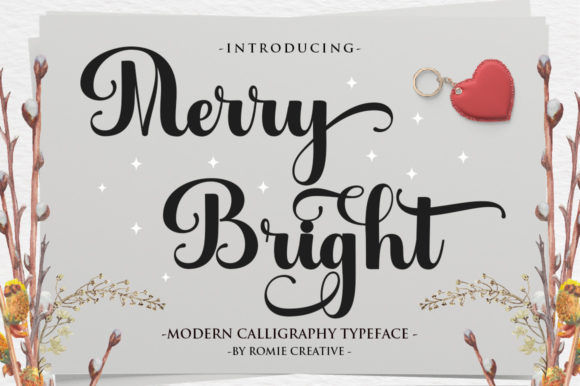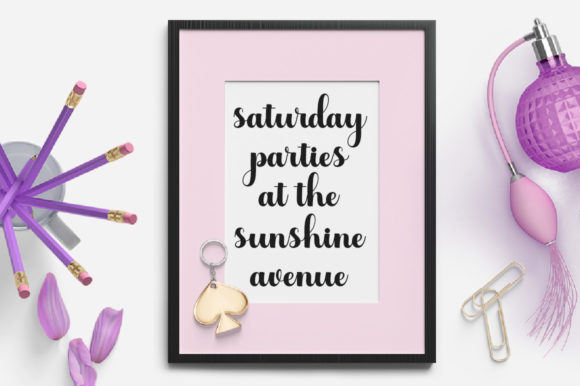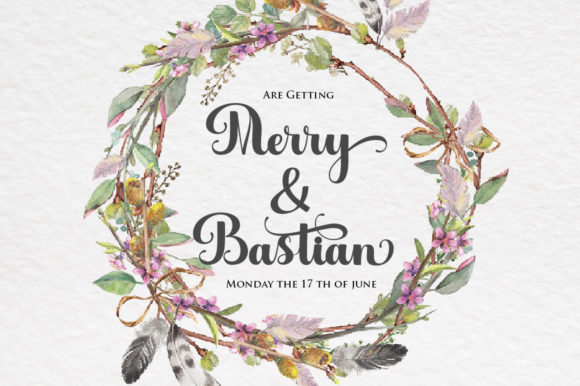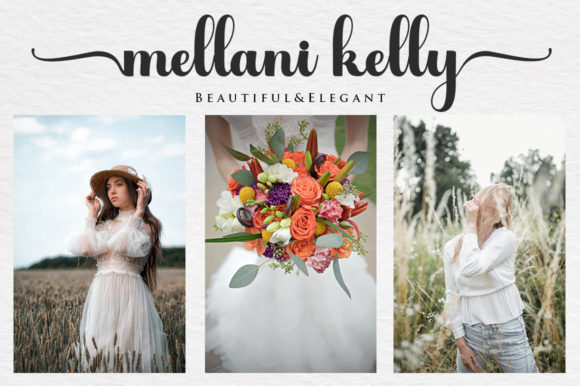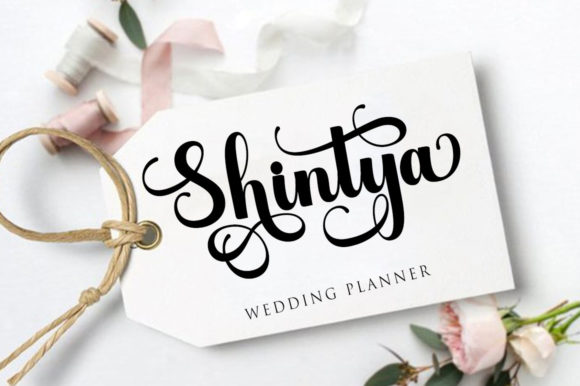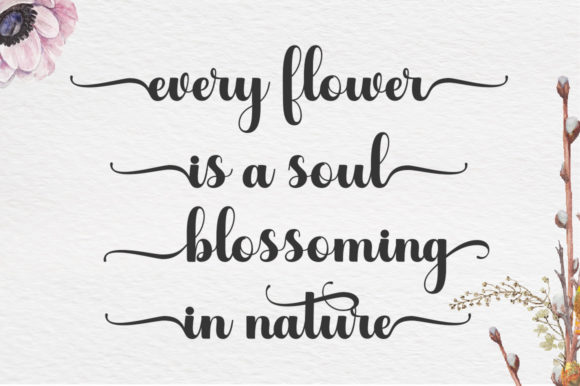
Merry Bright Font
About Merry Bright Font
Merry Bright is a stylish and bright script font. It looks stunning on wedding invitations, thank you cards, quotes, greeting cards, logos, business cards and every other design which needs a handwritten touch.